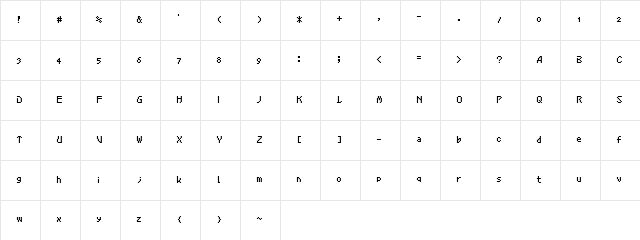
Final Fantasy I GBAa Regular
Design Context for Final Fantasy I GBAa Typeface
Final Fantasy I GBAa is a composed and adaptable typeface that performs quietly and consistently across a wide range of design contexts.